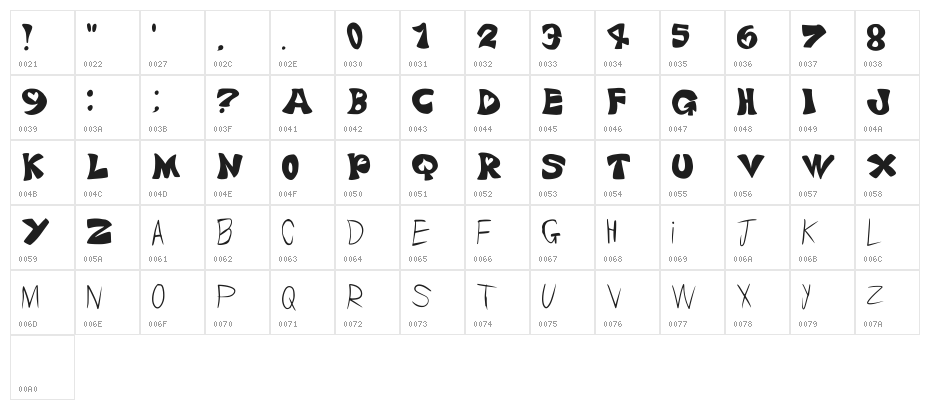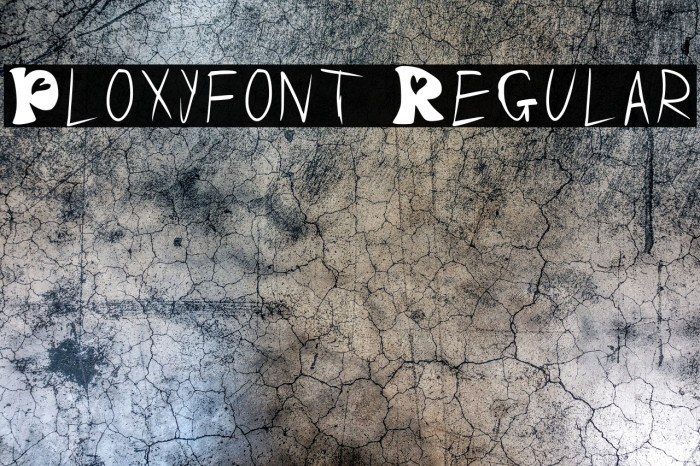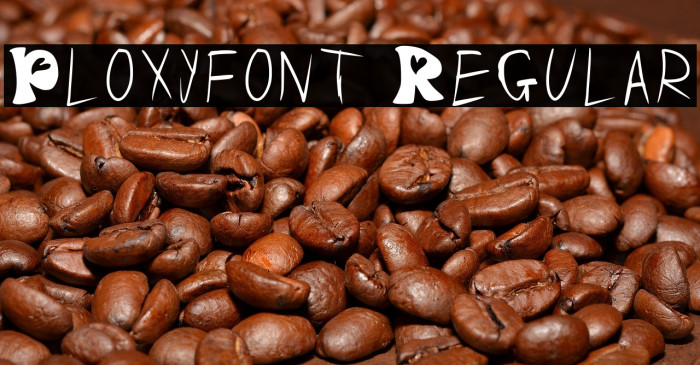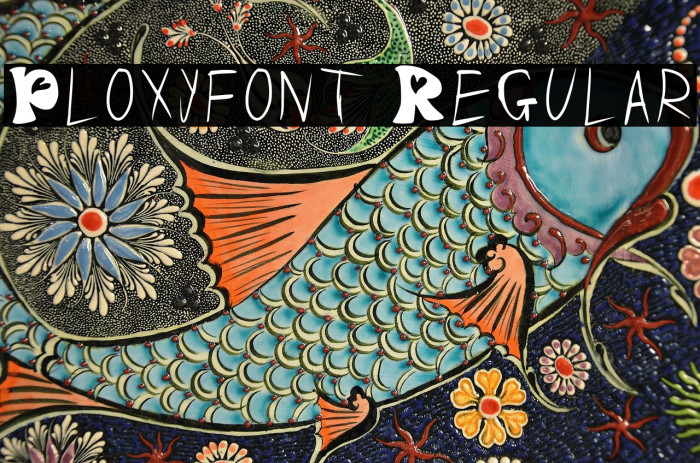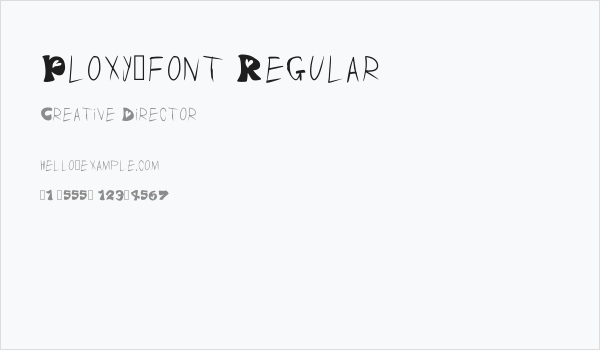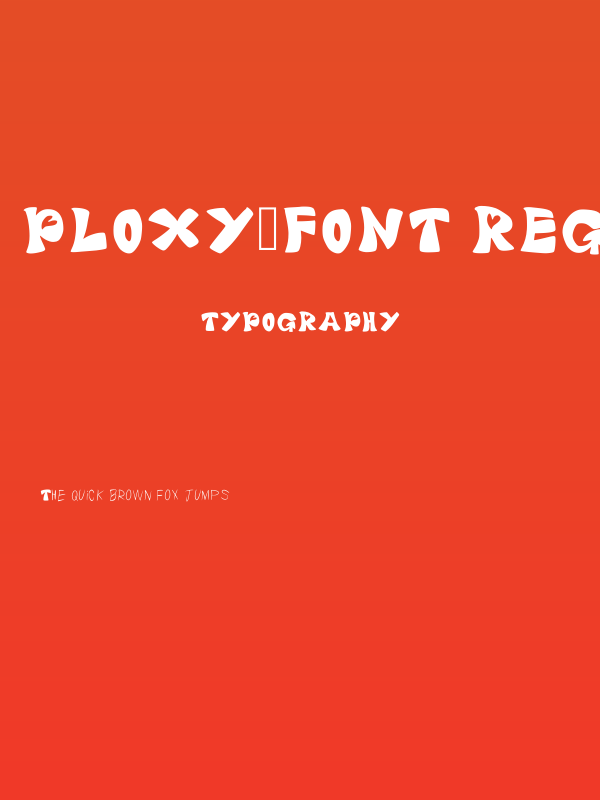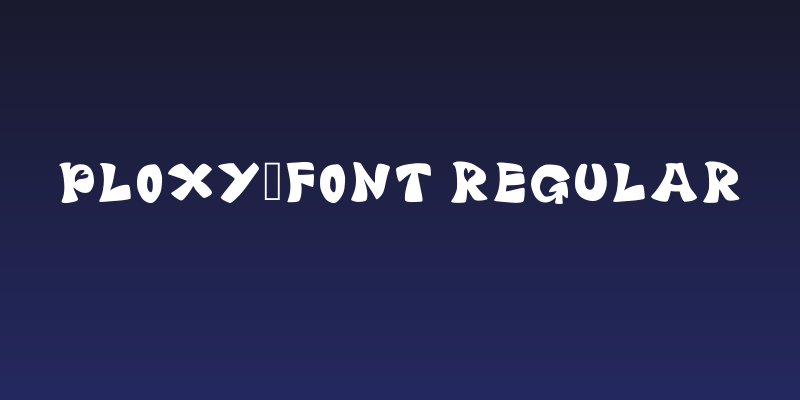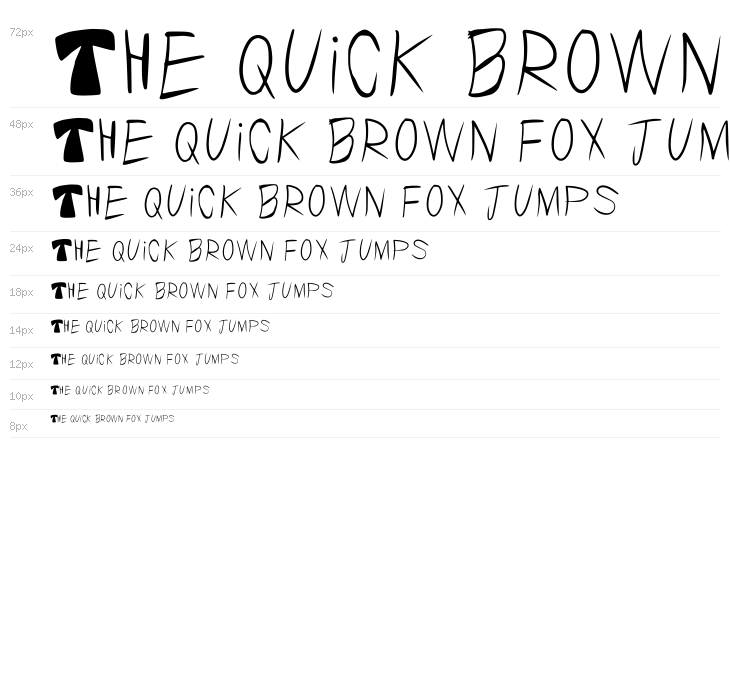
Ploxy_font Regular Font
Ploxy_font Regular Description
This font features a playful and bold style with a unique, hand-drawn appearance. The uppercase letters are thick and have a whimsical, cartoonish quality, while the lowercase letters are more slender and maintain a casual, handwritten feel. The numbers are bold and rounded, complementing the overall playful aesthetic. Special characters like the exclamation mark and question mark are exaggerated, adding to the font's expressive nature. This font is ideal for projects that require a fun and informal touch, such as children's books, playful branding, or creative posters.
| Overall Style | Playful, Whimsical, Hand-drawn |
| Proposed Projects | Children's books, playful branding, creative posters, informal invitations. |